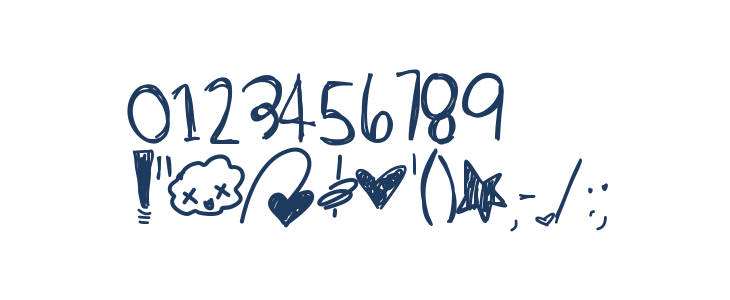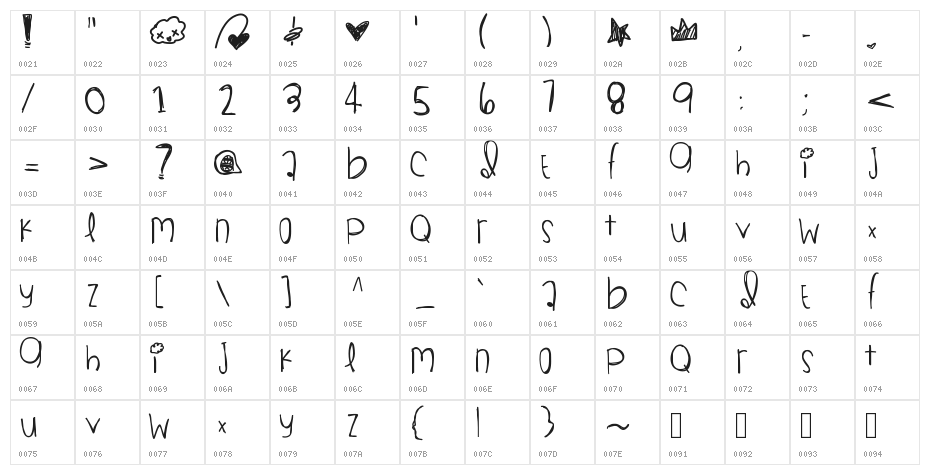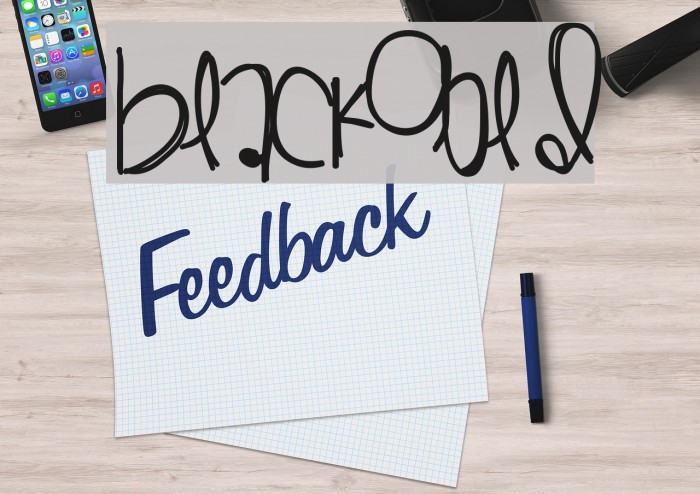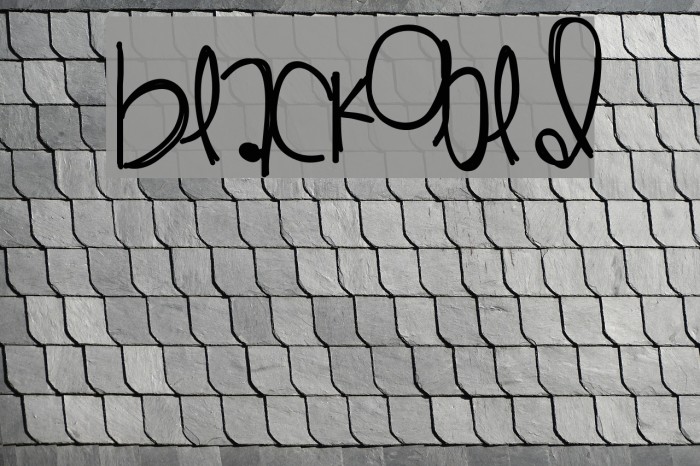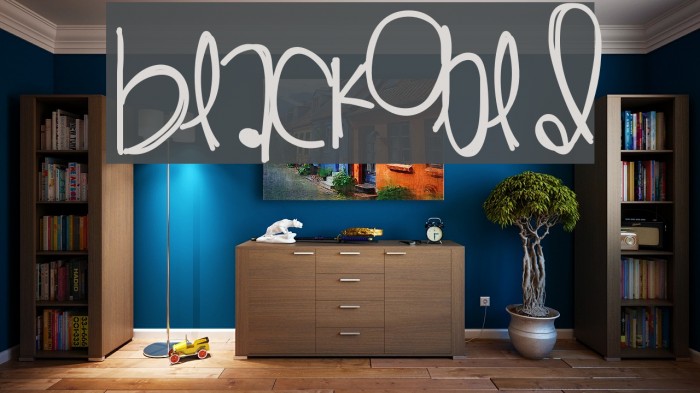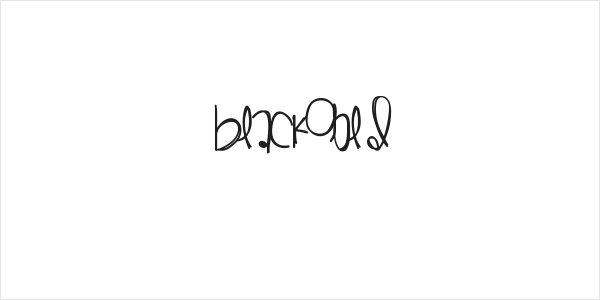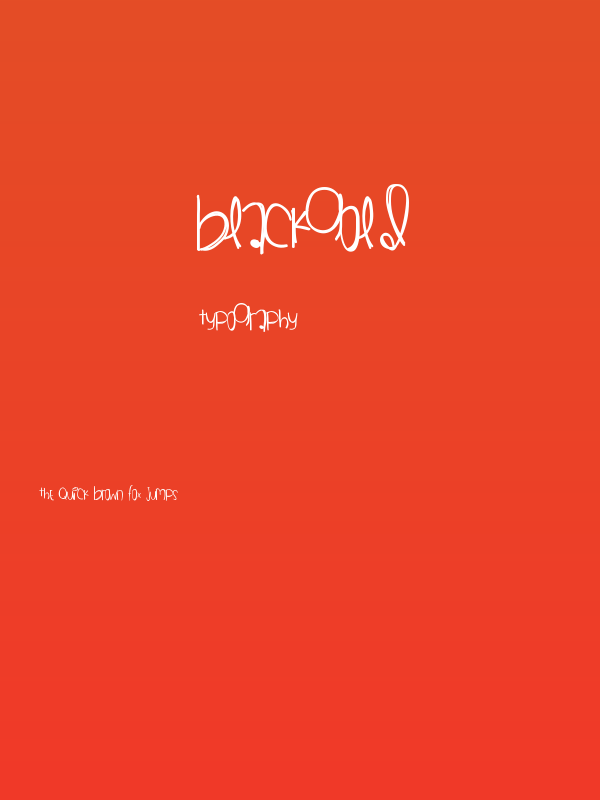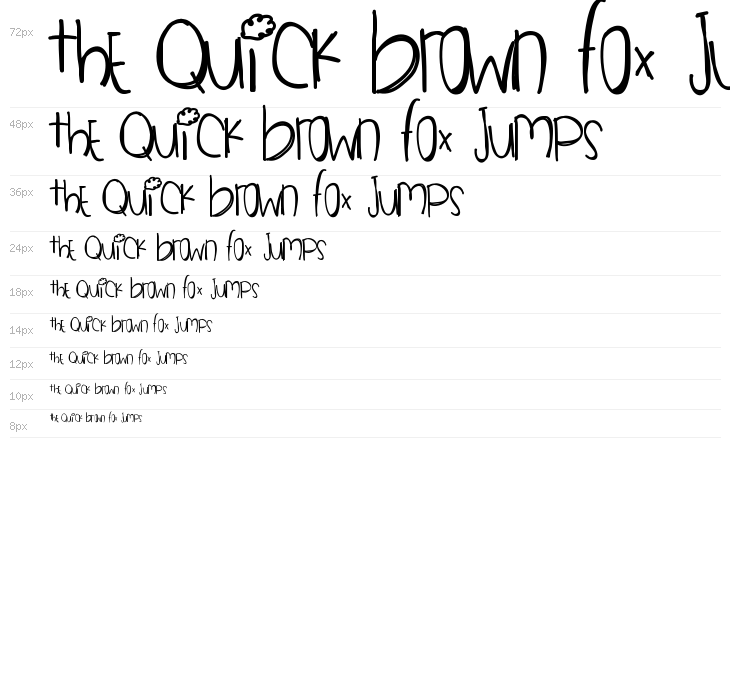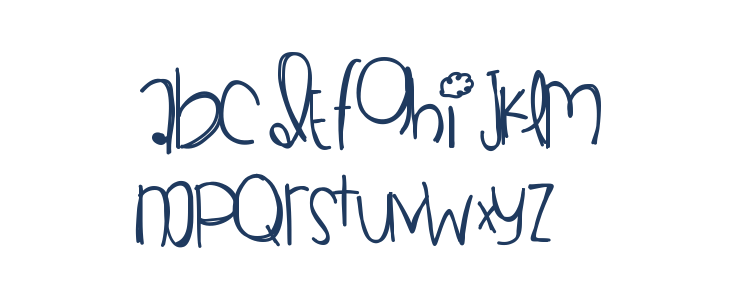
Blackgold Font
Blackgold Description
This playful and whimsical font features a handwritten style with a casual, carefree vibe. The characters are slightly irregular, adding to the charm and uniqueness of the design. Each letter is crafted with a bold, confident stroke, giving it a lively and energetic feel. The font includes a mix of uppercase and lowercase letters, numbers, and a variety of special characters, each with its own quirky personality. The overall look is fun and approachable, making it perfect for projects that require a touch of creativity and individuality.
| Proposed Projects | Ideal for children's books, greeting cards, playful branding, and creative social media graphics. |